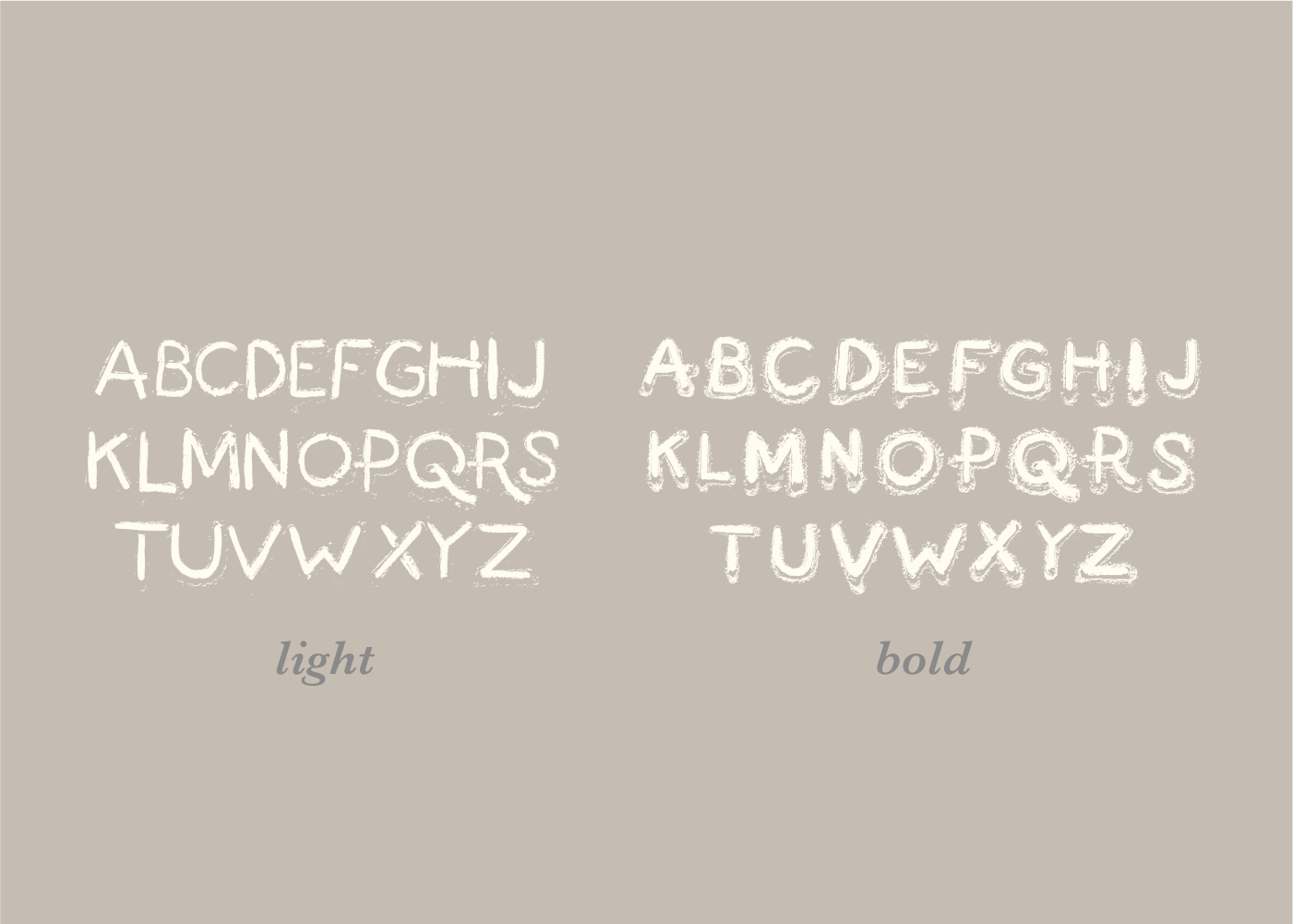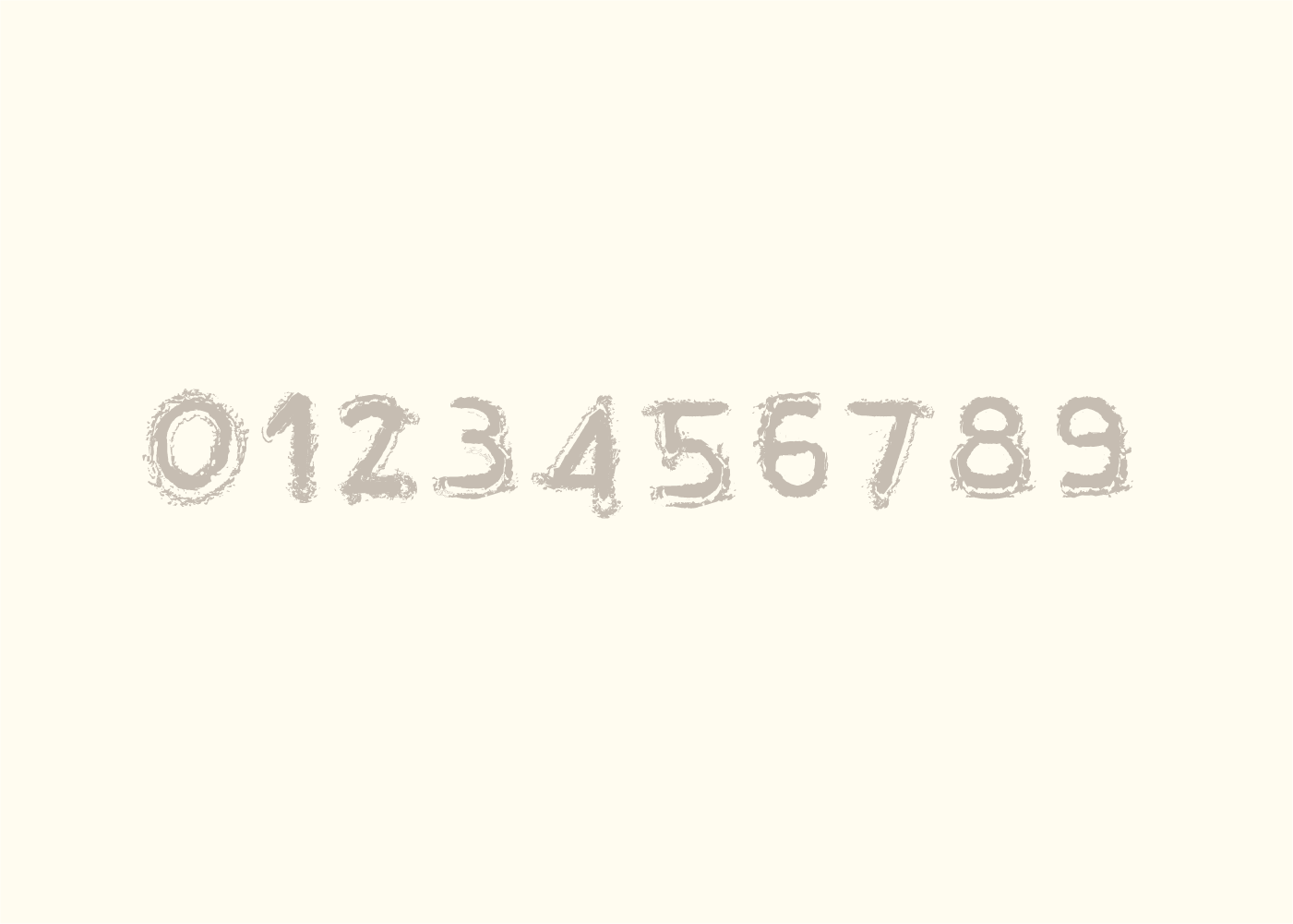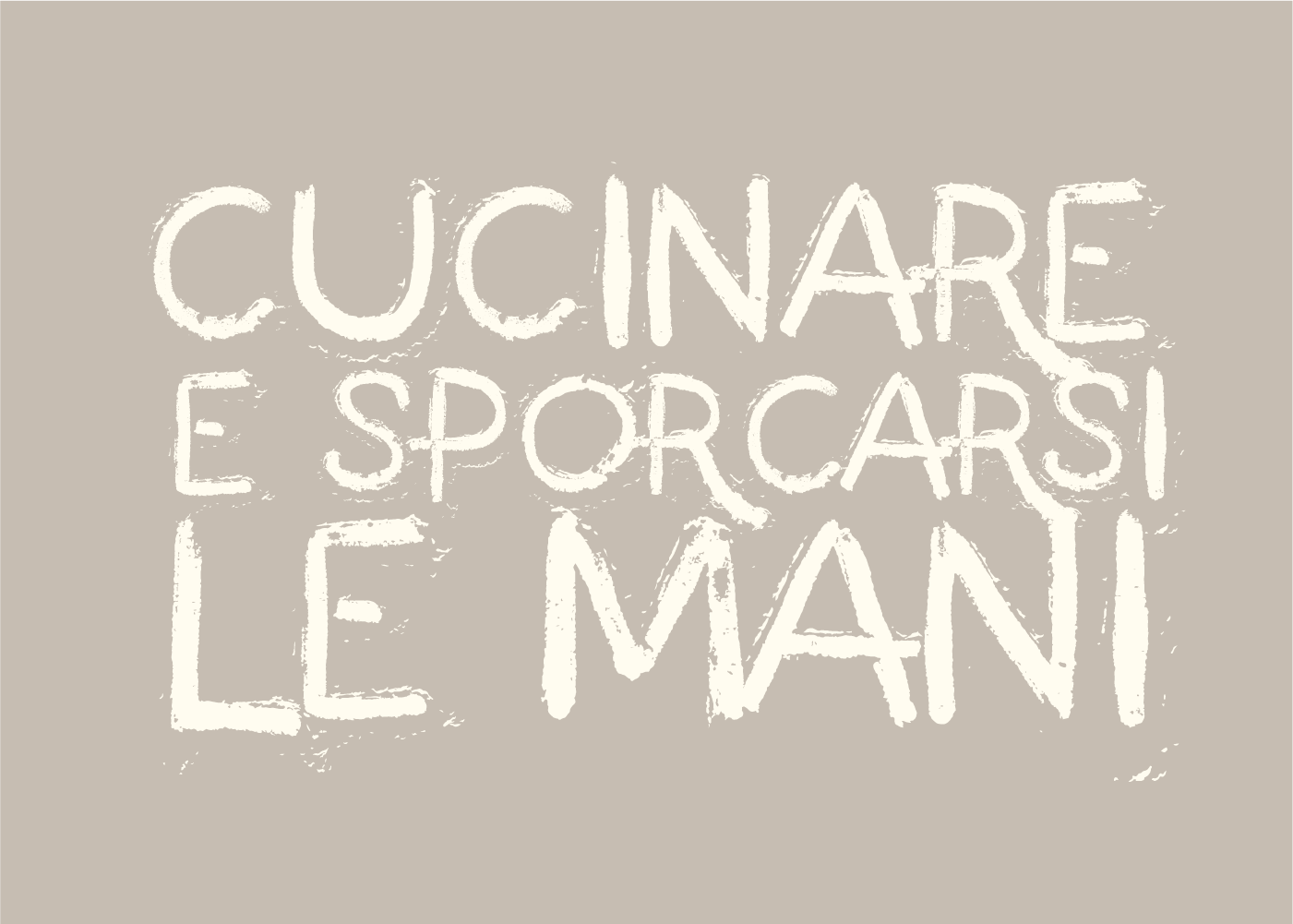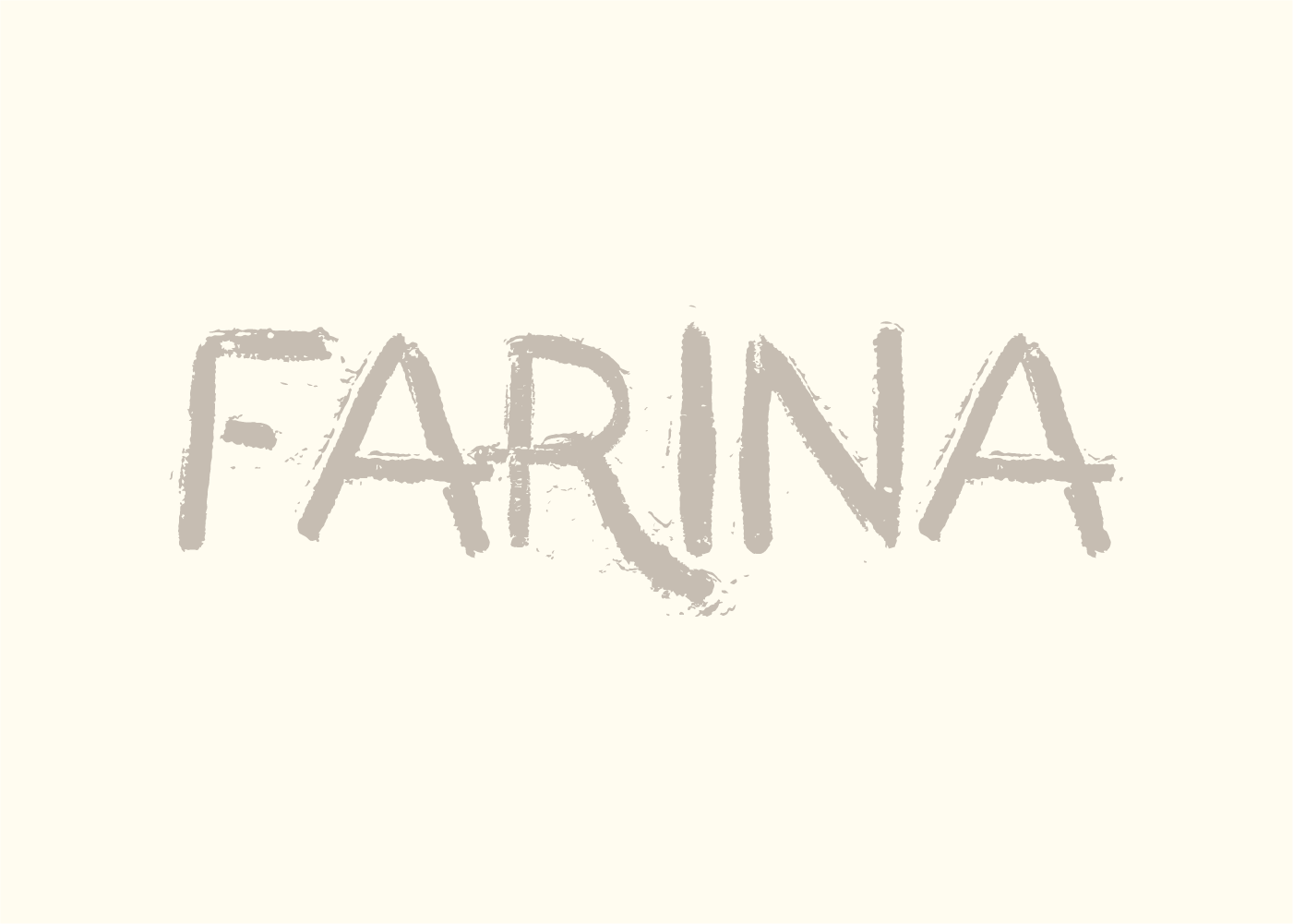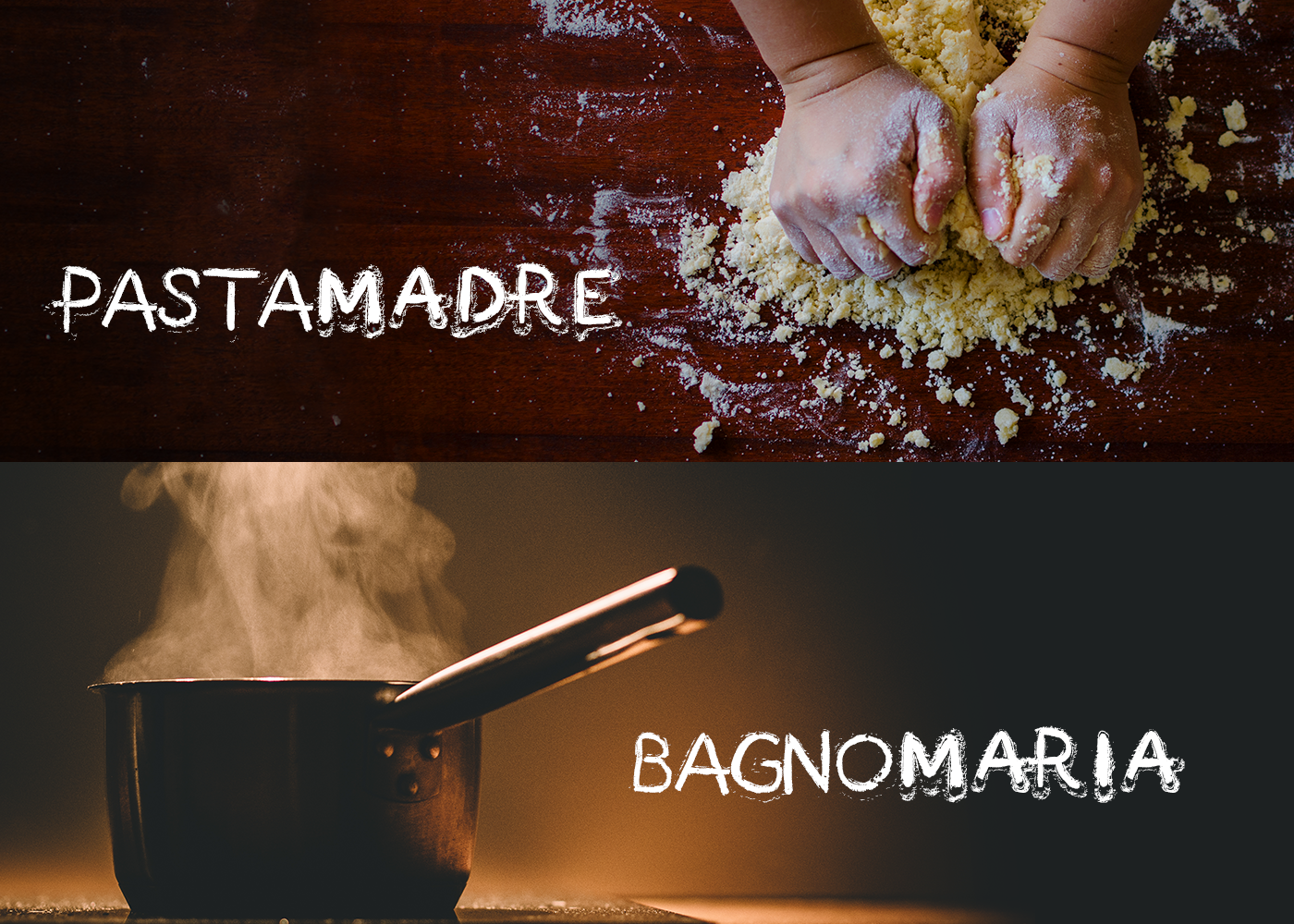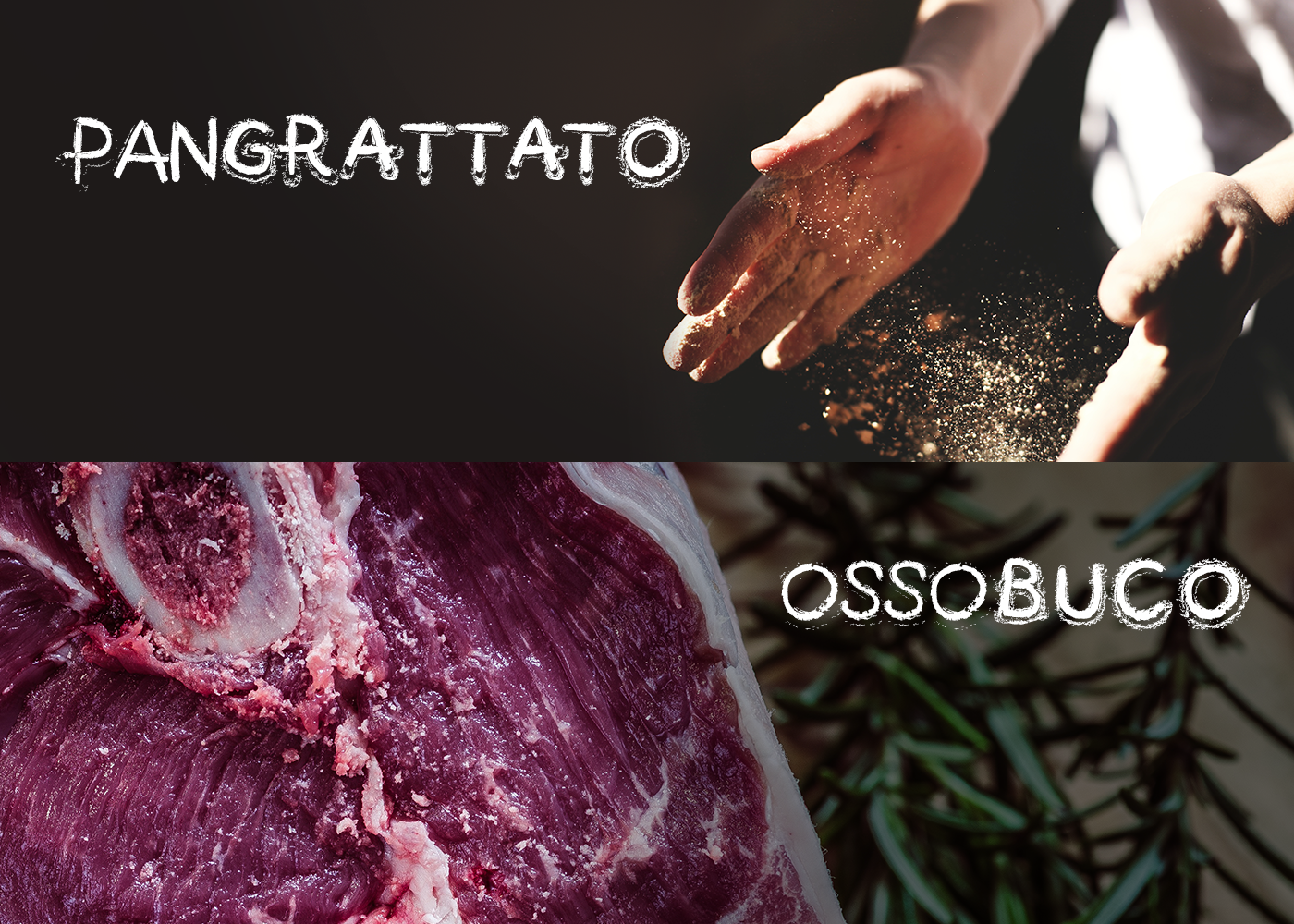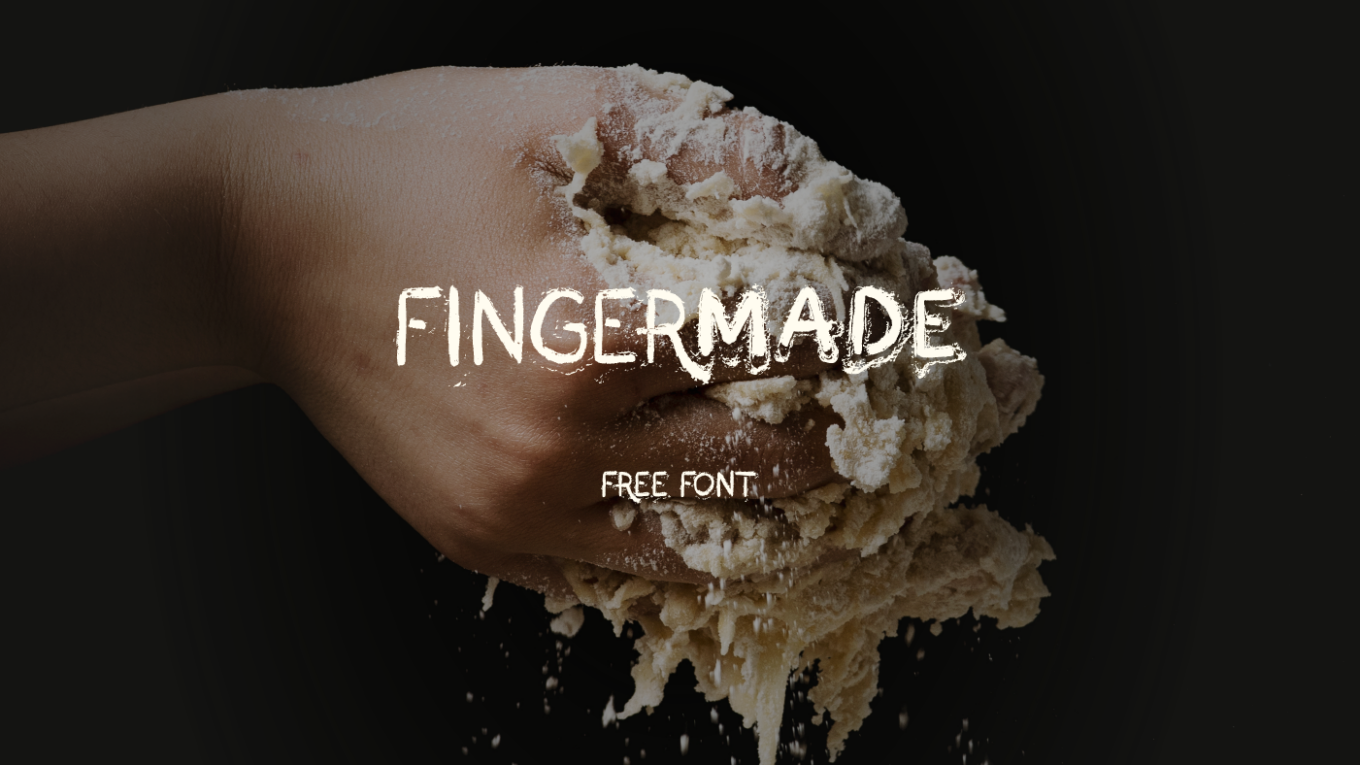
Fingermade Font: The Perfect Addition to Your Design Arsenal
Are you tired of using the same old fonts in your designs? Do you want to add a touch of personality and whimsy to your typography? Look no further than the Fingermade Font! This relaxed and casual script font is perfect for designers and crafters who want to give their designs a textured, handmade vibe.
What is Fingermade Font?
Fingermade is a unique script font that is designed to mimic the look and feel of handwritten text. With its charming and easy-to-read letters, this font is perfect for adding a personal touch to your designs. Whether you’re working on a branding project, a craft tutorial, or a social media graphic, Fingermade Font is sure to make your designs stand out.
Key Features of Fingermade Font
- Relaxed and Casual: Fingermade Font has a laid-back, casual vibe that’s perfect for designers who want to add a touch of personality to their typography.
- Textured Vibe: This font has a unique, textured look that’s reminiscent of handmade crafts. It’s perfect for designers who want to add a tactile element to their designs.
- Easy to Read: Despite its casual look, Fingermade Font is surprisingly easy to read. This makes it perfect for use in body text, headings, and titles.
- Charming and Appealing: Fingermade Font has a certain charm and appeal that’s hard to resist. It’s perfect for designers who want to add a touch of whimsy to their designs.
Uses for Fingermade Font
Fingermade Font is a versatile font that can be used in a variety of design projects. Here are a few ideas to get you started:
- Branding and Packaging: Use Fingermade Font to add a personal touch to your branding and packaging designs. It’s perfect for creating labels, tags, and other marketing materials.
- Crafting and DIY Projects: Fingermade Font is a natural fit for crafting and DIY projects. Use it to create tutorials, instructions, and other materials that need a personal touch.
- Social Media Graphics: Add a touch of personality to your social media graphics with Fingermade Font. It’s perfect for creating eye-catching headlines and titles.
- Stationery and Invitations: Use Fingermade Font to create beautiful stationery and invitations. It’s perfect for adding a touch of whimsy to your designs.
Tips for Using Fingermade Font
Here are a few tips for getting the most out of Fingermade Font:
- Use it with Other Fonts: Fingermade Font pairs well with other fonts, especially sans-serif fonts. Try pairing it with a clean, modern font for a interesting contrast.
- Experiment with Colors: Fingermade Font looks great in a variety of colors, from bright and bold to soft and pastel. Experiment with different colors to find the perfect look for your design.
- Don’t be Afraid to Get Creative: Fingermade Font is a versatile font that can be used in a variety of creative ways. Don’t be afraid to experiment and try new things!
Fingermade Font is a unique and versatile font that’s perfect for designers and crafters who want to add a touch of personality to their typography. With its relaxed and casual vibe, textured look, and easy-to-read letters, this font is sure to make your designs stand out. Whether you’re working on a branding project, a craft tutorial, or a social media graphic, Fingermade Font is a great choice. So why not give it a try and see what amazing designs you can create?